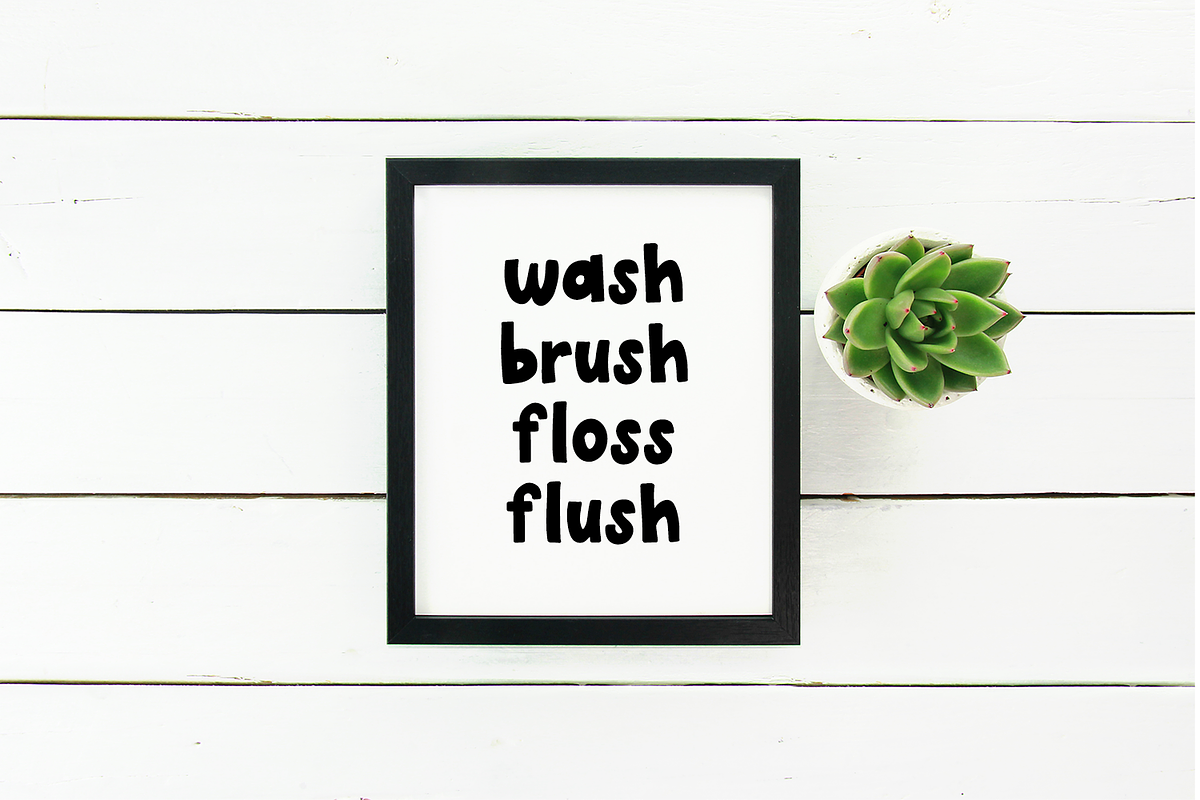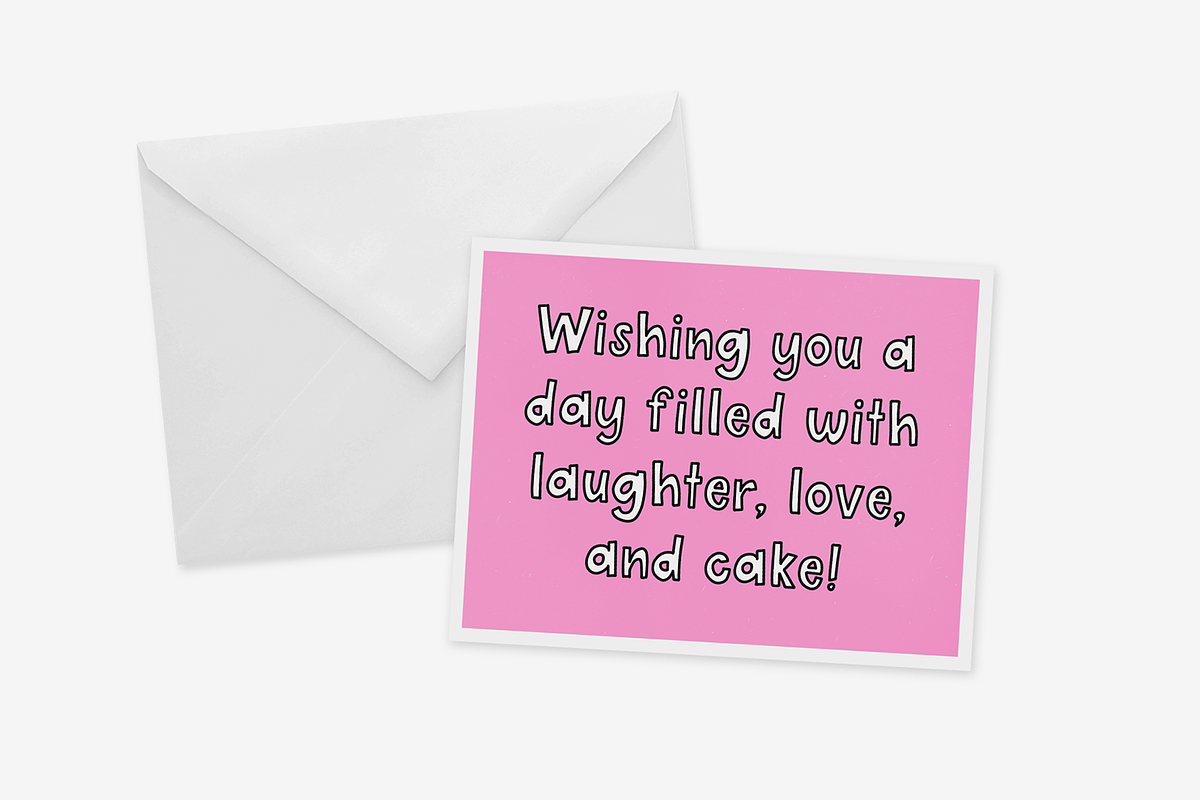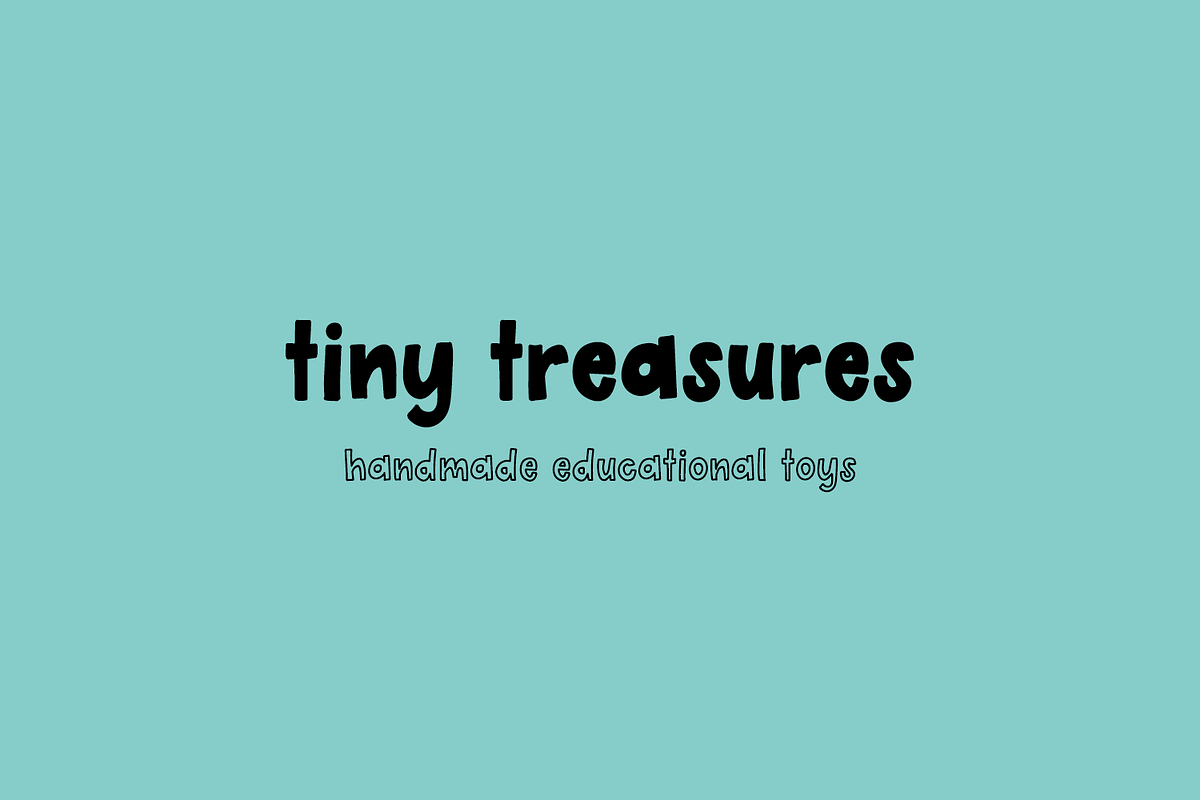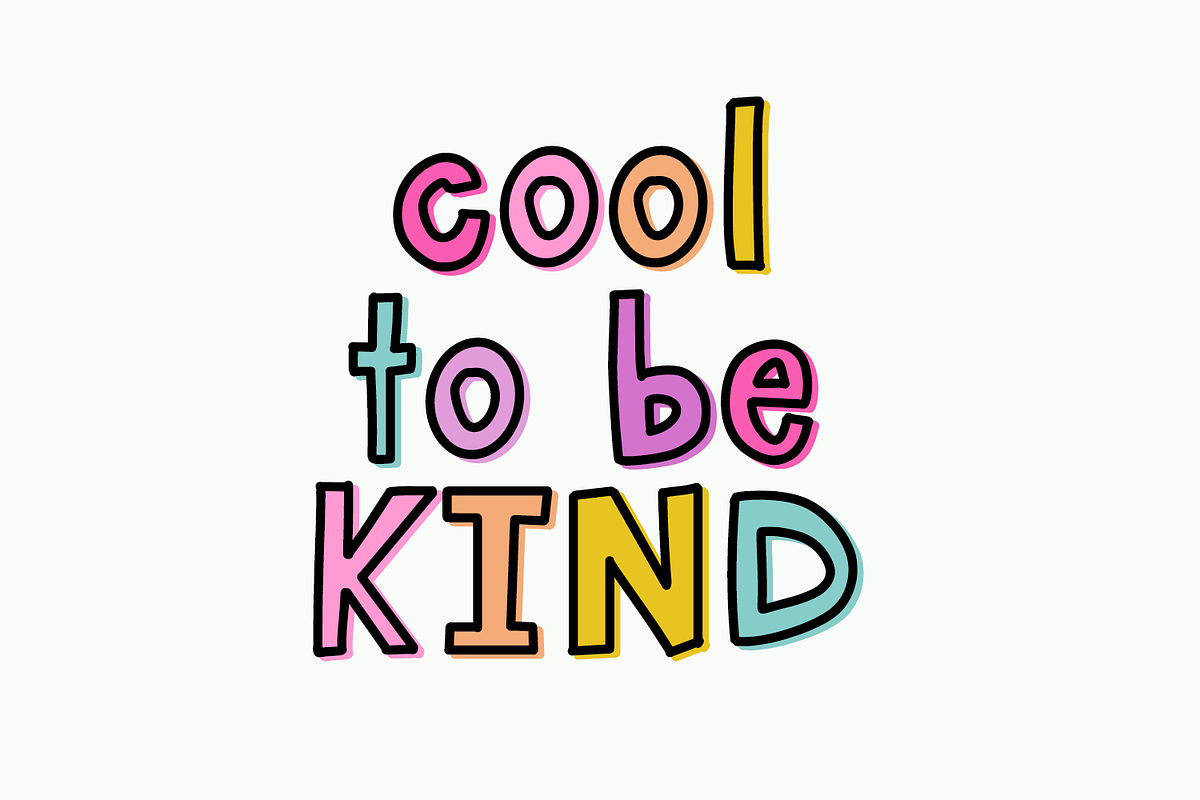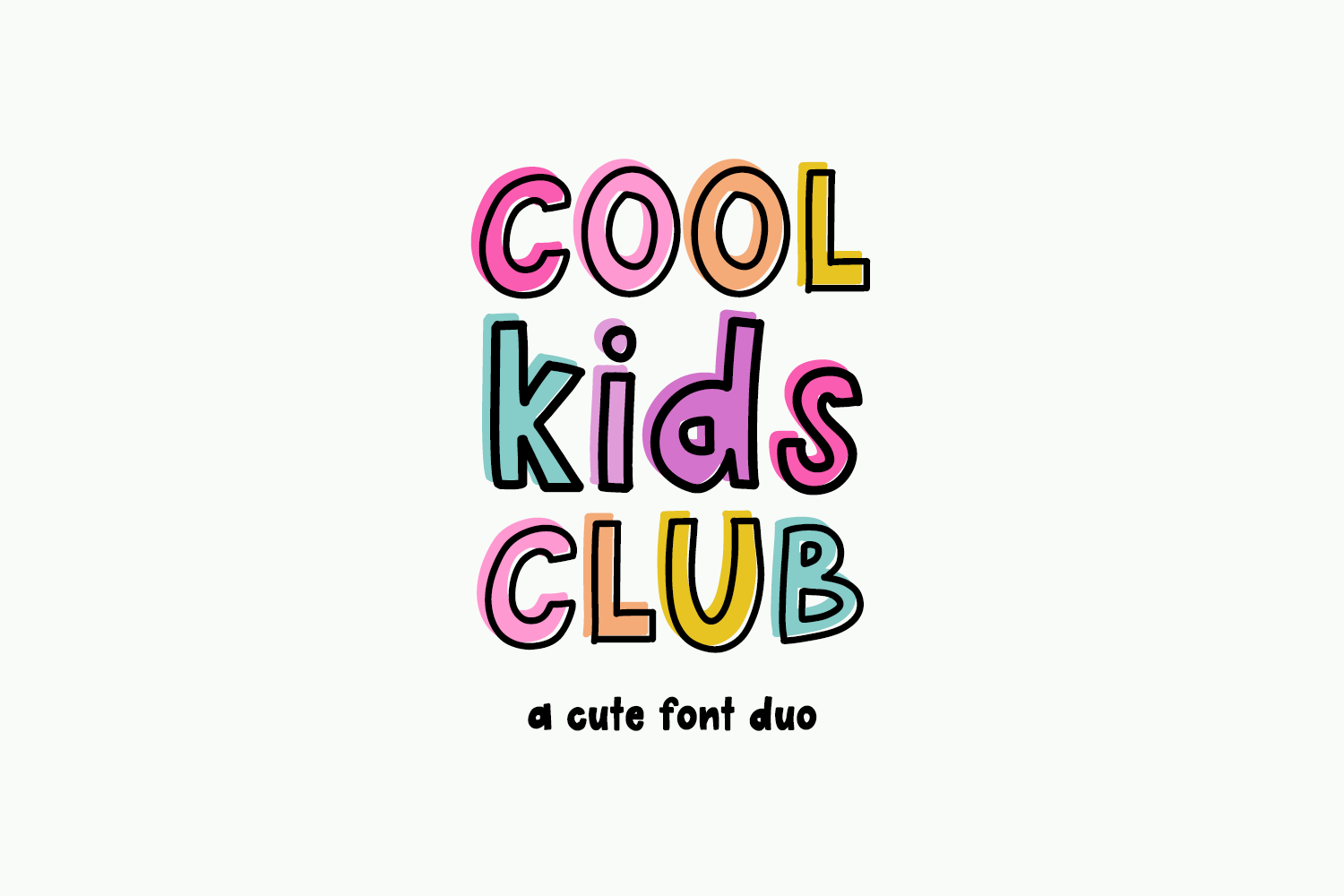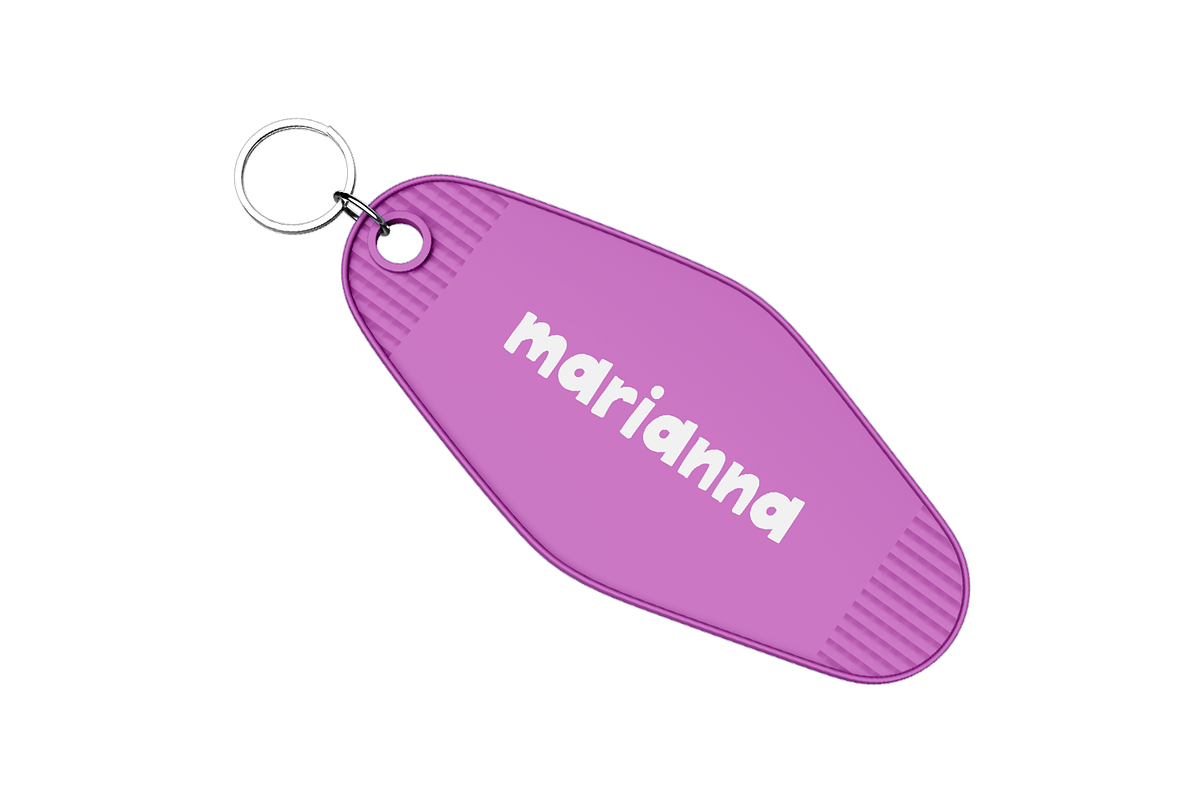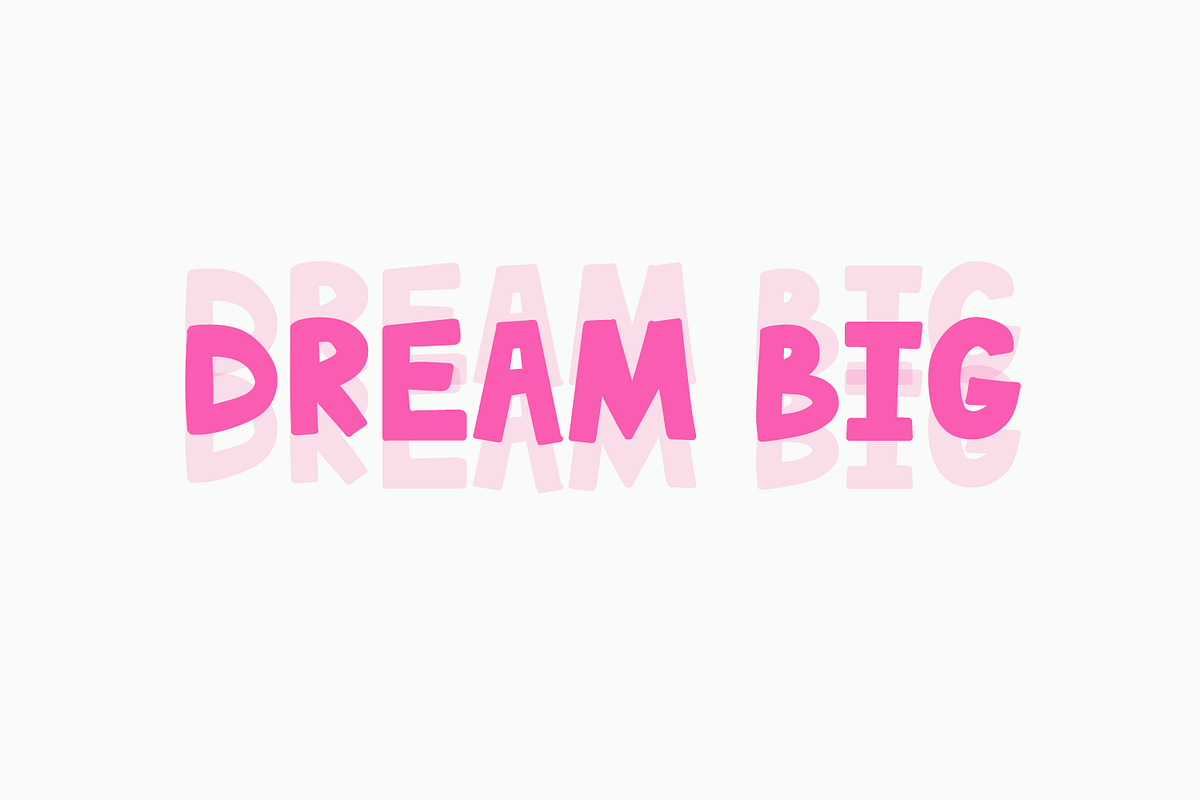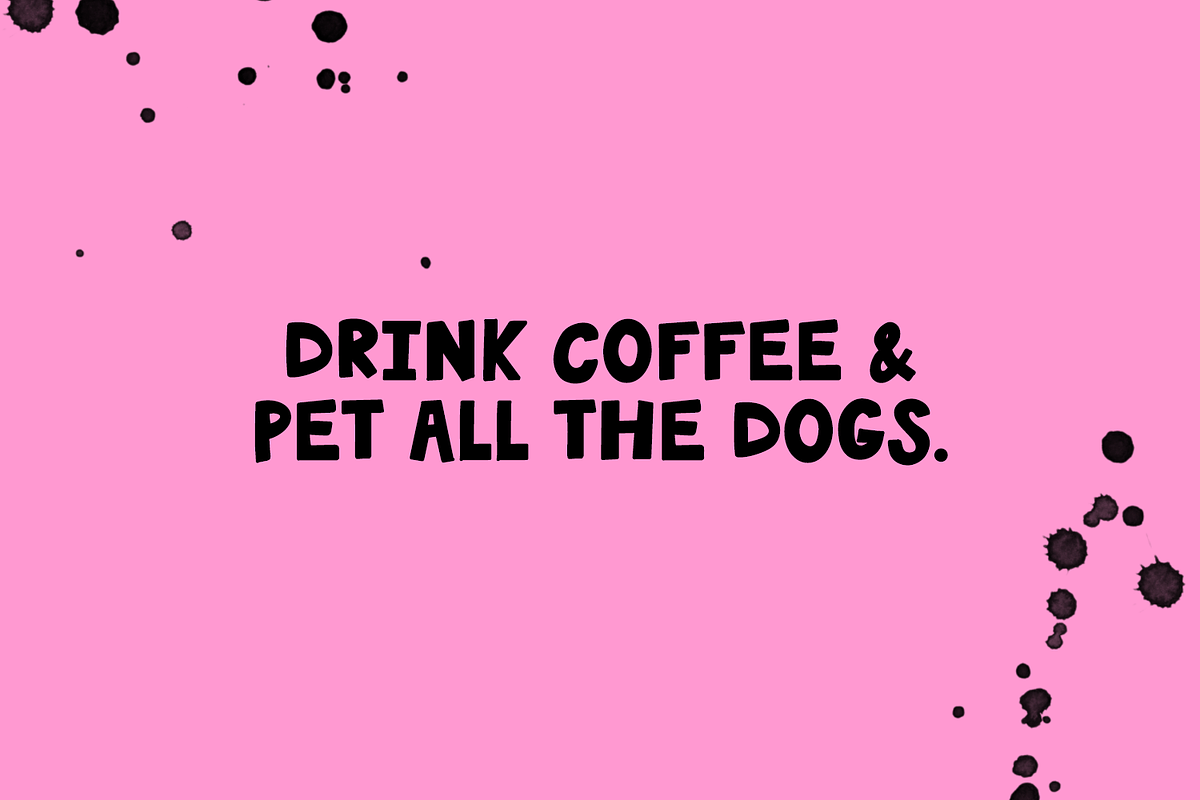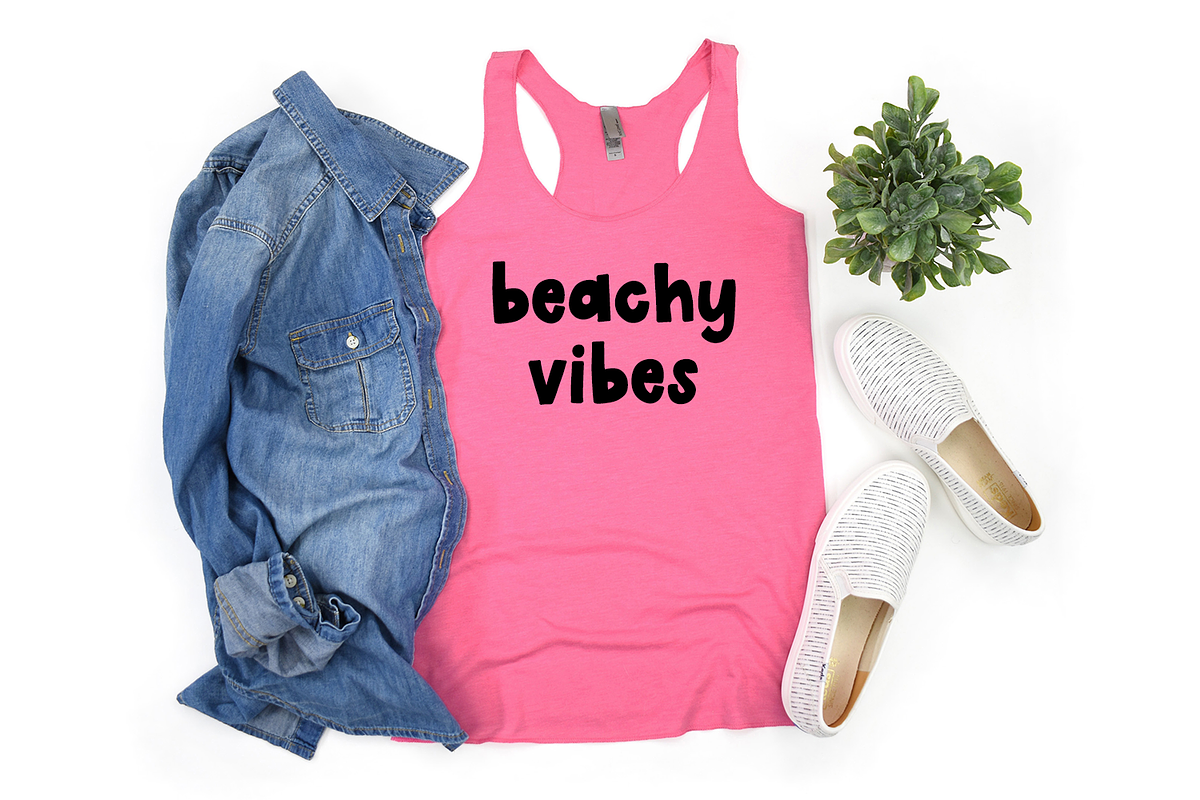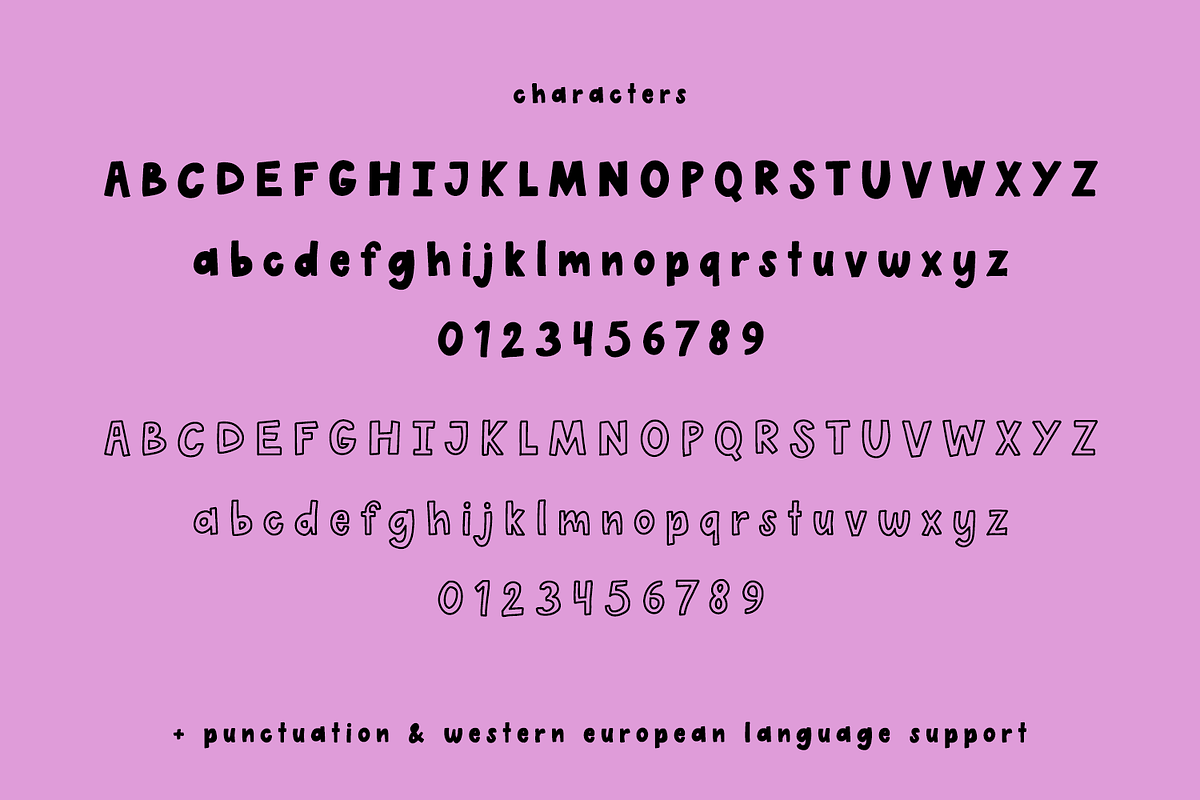
Cool Kids Club Sans - A Font Duo
Cool Kids Club is a sans font duo featuring a solid version and an outline version. This duo is cute & legible. Each font can stand on its own, or you can layer them, or mix & match for your project. Cool Kids Club is perfect for logos & branding, greeting cards, painted banners, digital planners, note-taking apps, Canva, Cricut projects, Silhouette projects, designing SVG files, laser cutting projects, & more.
Cool Kids Club (solid + outline) includes:
- full upper + lowercase characters
- numbers + punctuation
- PUA-encoding
- Western European language support - English, French, Spanish, Portuguese (Brazil), Portuguese (Portugal), Italian, German (Germany), German (Austria), Dutch, Danish, Swedish, Norwegian (Bokmål and Nynorsk), Finnish, Icelandic, Irish, Welsh